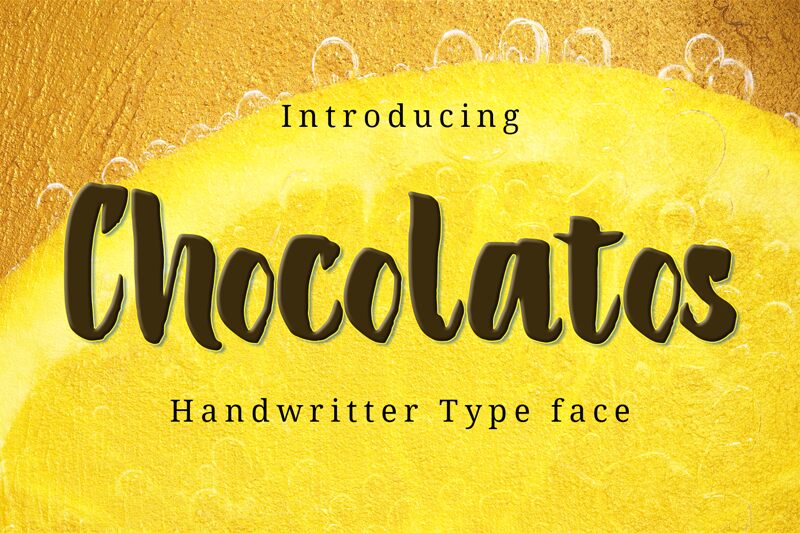
ChocolatosRegular
Chocolatos, a bold and striking brush font designed by Zulkhairilettering, is the perfect choice for projects that need a touch of artistic flair. Its semi-condensed width makes it an excellent choice for headings and titles in designs ranging from edgy and modern to playful and whimsical. Whether you are working on branding materials, social media graphics, or packaging design, Chocolatos will add personality and character to your project. Don't settle for ordinary fonts - make your designs stand out with Chocolatos' bold brush strokes that are sure to catch the eye of any viewer!